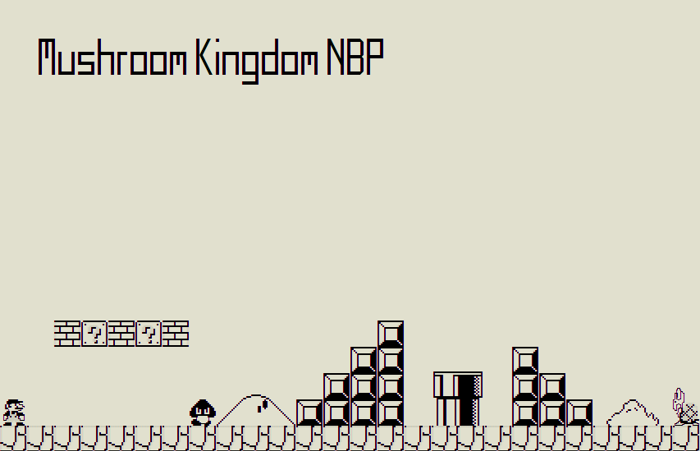
Mushroom Kingdom NBP Font
Type out a new world in the Mushroom Kingdom 1985-style with the font that inspired MARIO MAKER on WiiU*!
(* possibly)
What was a work-in-progess is now finished with complete keyboard support, a few more dingbats, and widened spaces to make gaps easier.
So nostalgic...could have oodles of fun with this one......
Ah, this is awesome! Love it!
awsome
This. Is. Awesome. Added to my favorites for a future project or something - great job!
Great job! But how about you remove the floor at the bottom and replace V with a floor at the top? That way you could put it under all the other stuff to make the floor where you want it!
Nice idea! Just add the bigger barrel and higher level of blocks following EFGH (Maybe add the plant inside the barrel too)
Oh my gosh this brings back countless memories!!! WELL DONE!!!